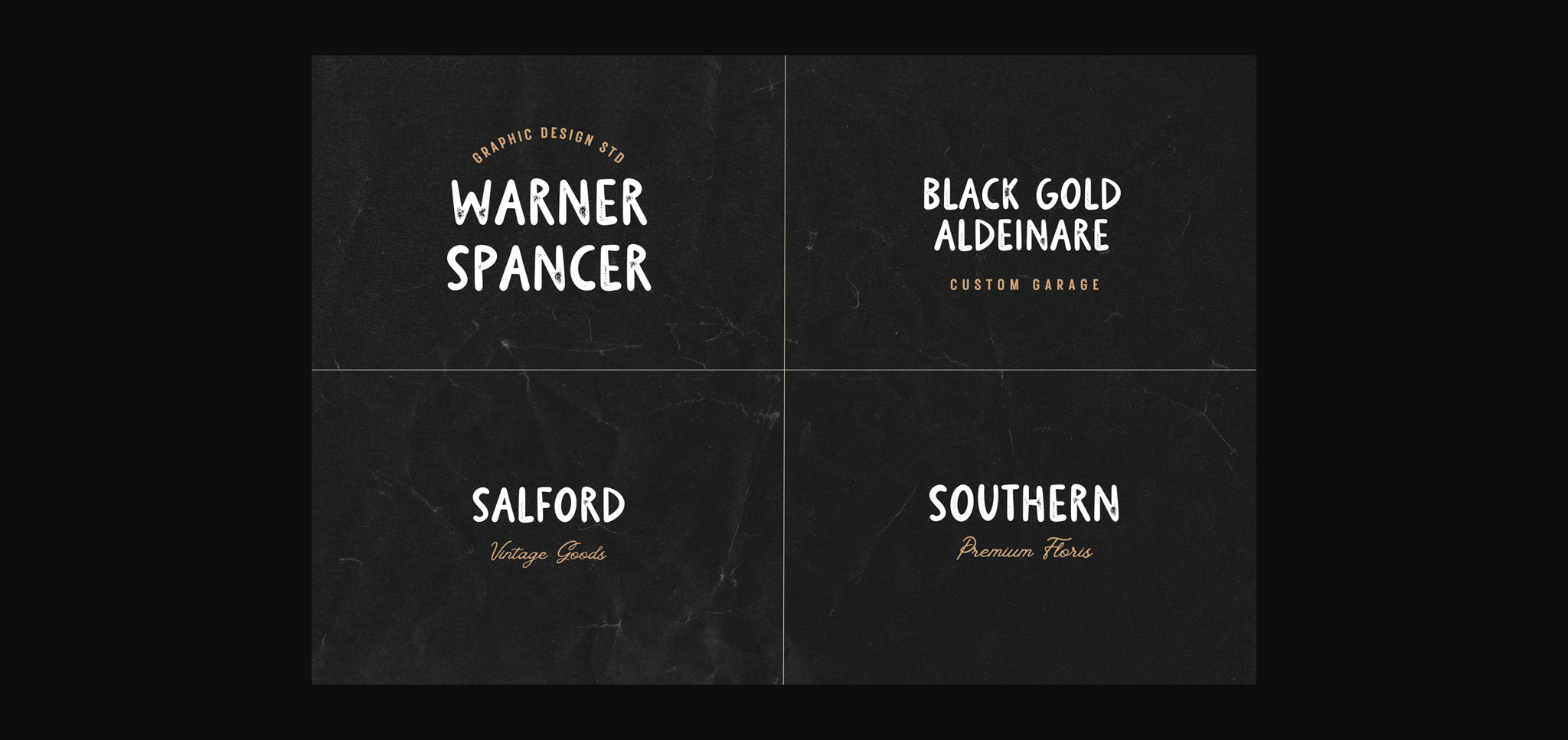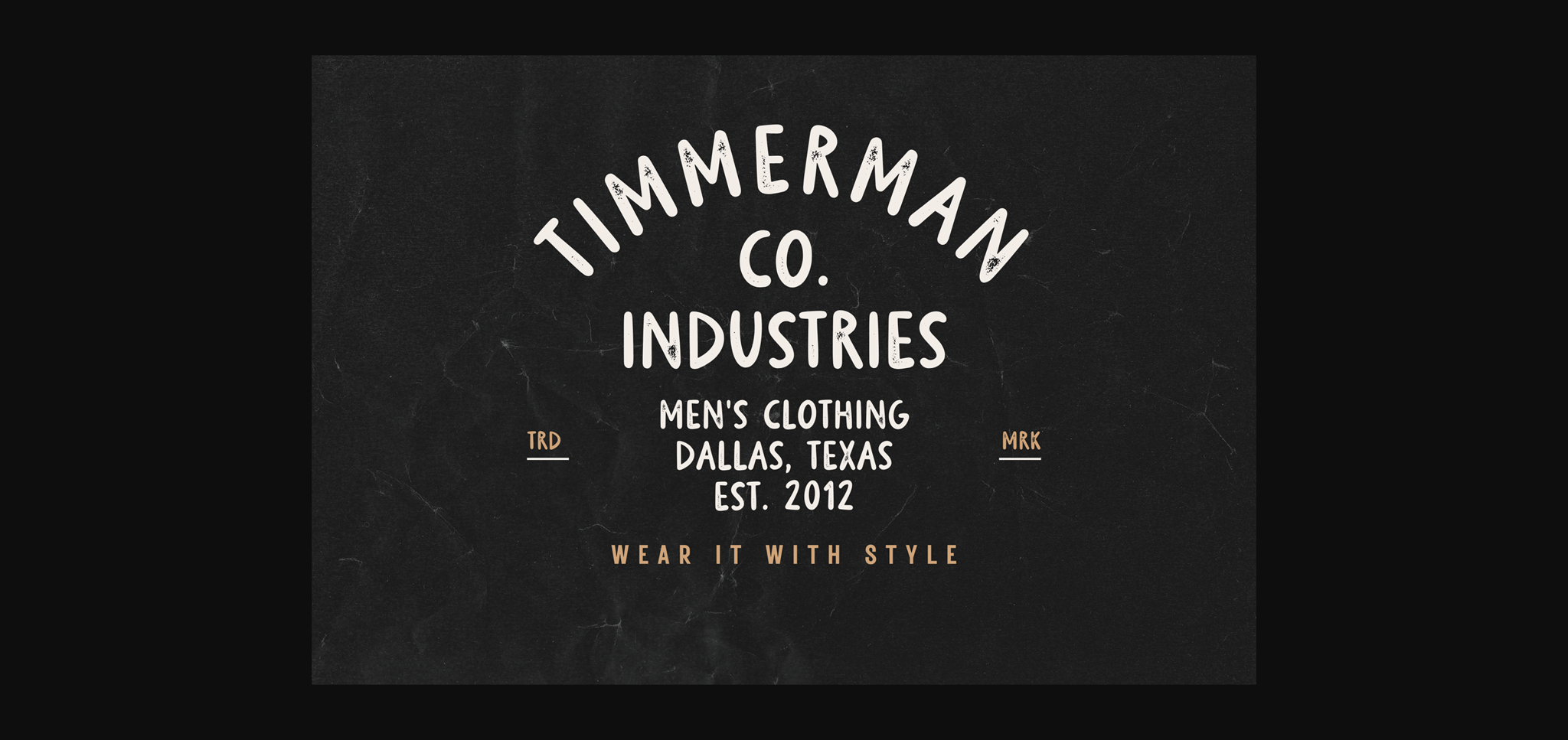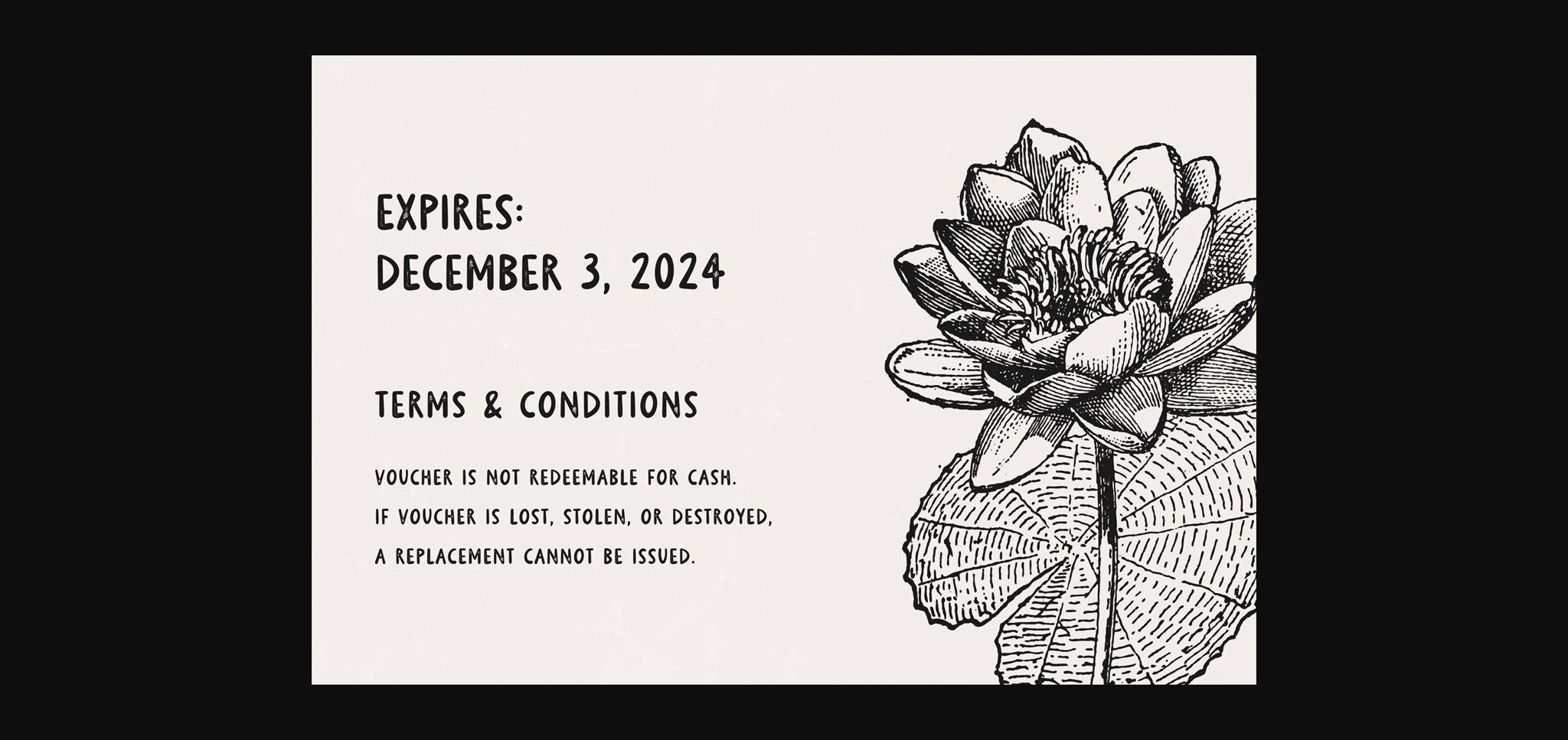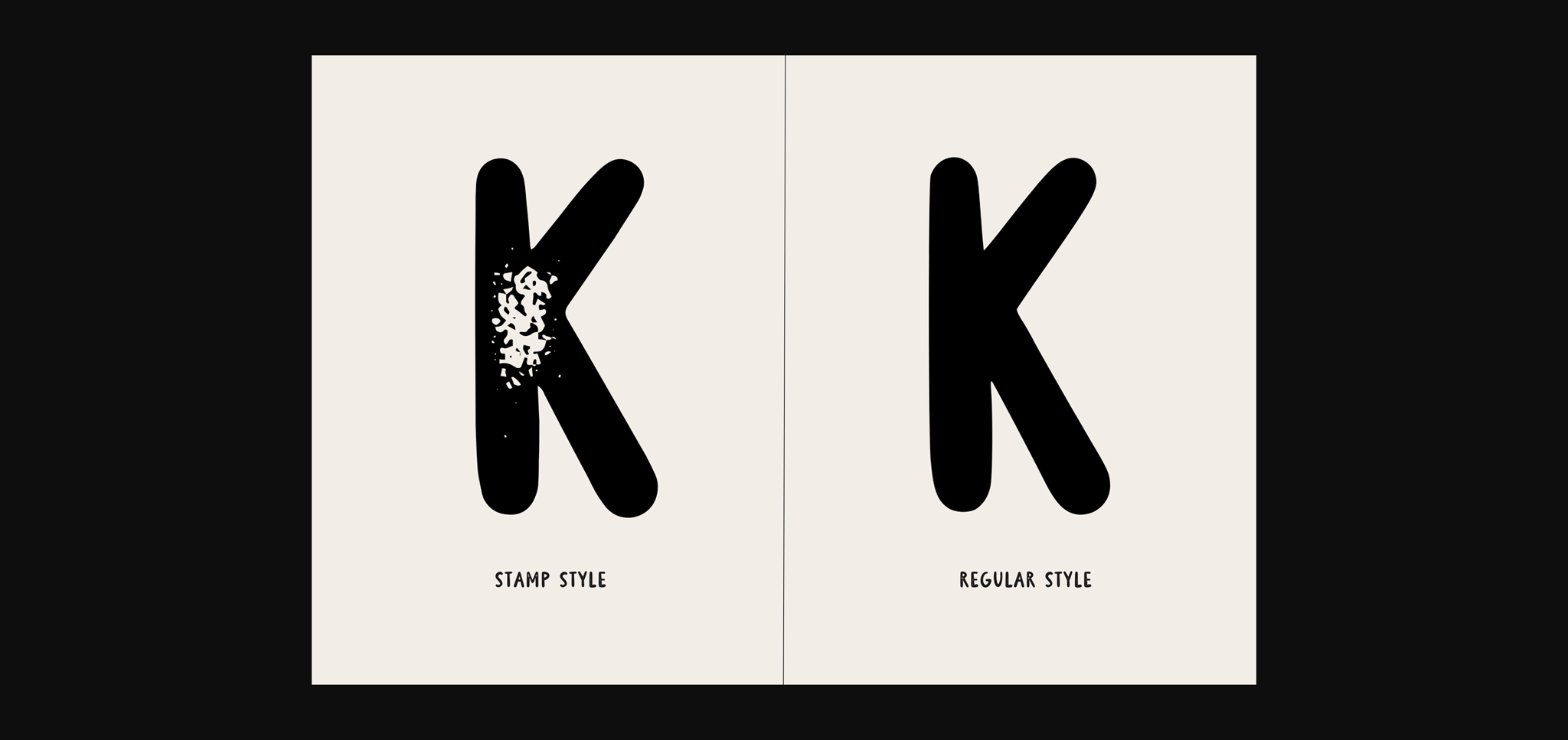
About Burdock Font
Burdock is a modern letterpress sans-serif font that harmonizes sleek design with vintage charm. Its clean, refined letterforms evoke a sense of contemporary sophistication, while subtle letterpress details add a touch of timeless character. Ideal for projects requiring a blend of modernity and classic appeal, Burdock elevates your designs with grace and style.